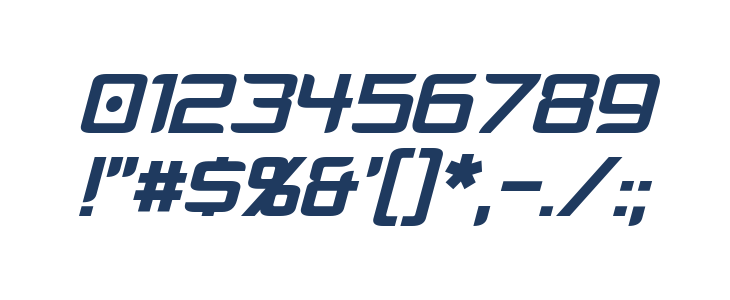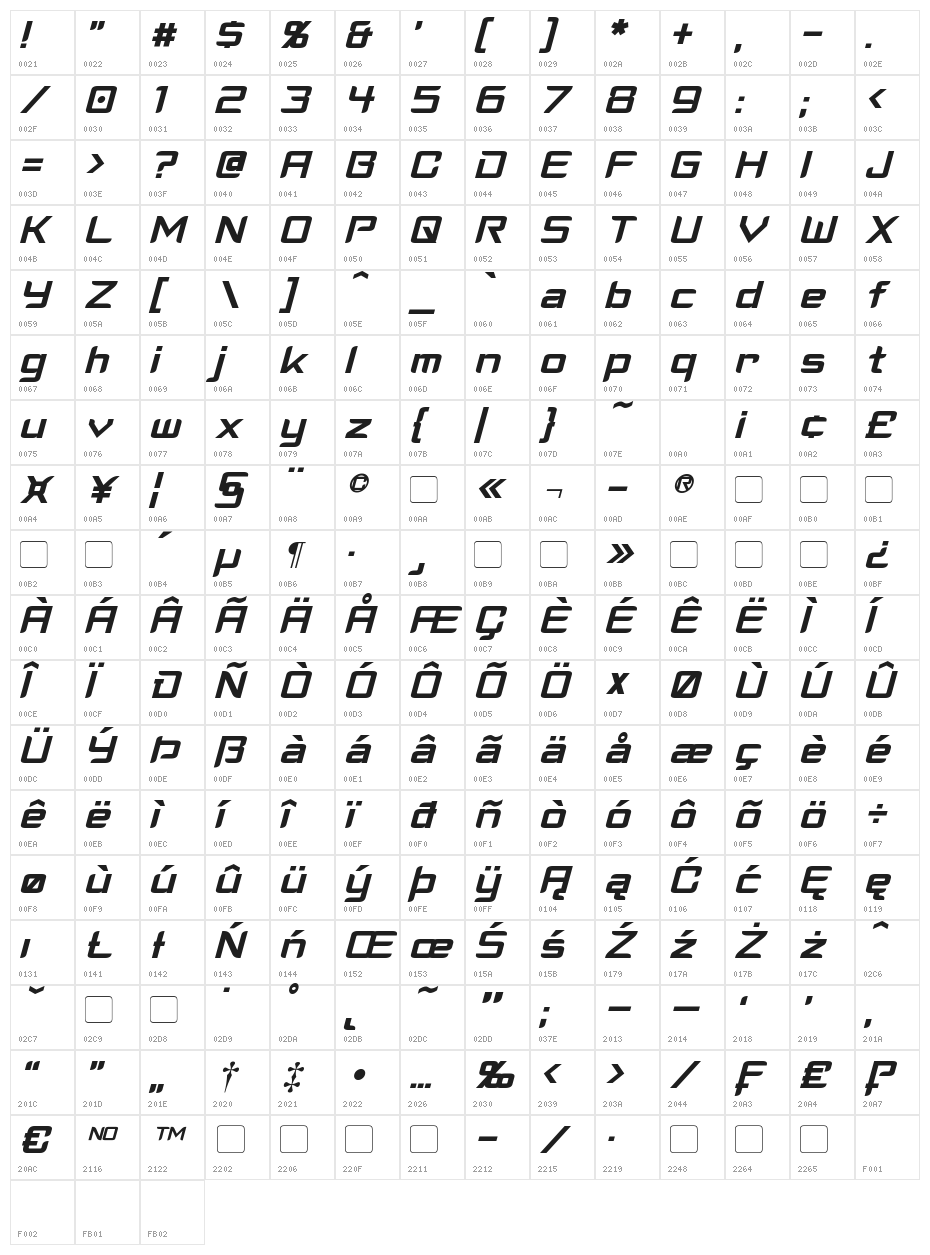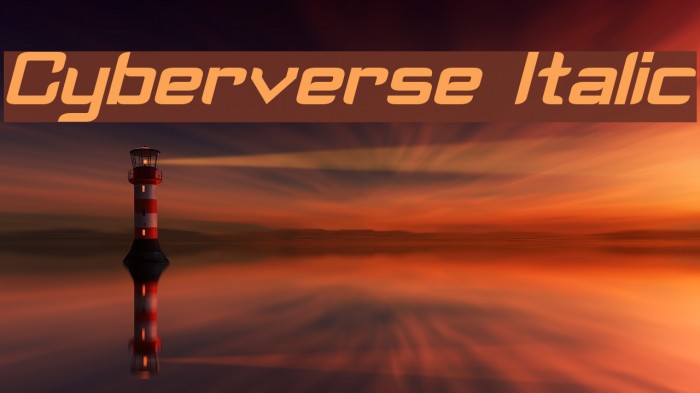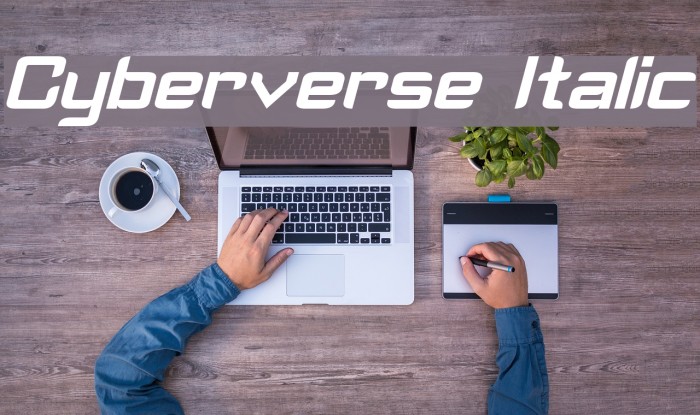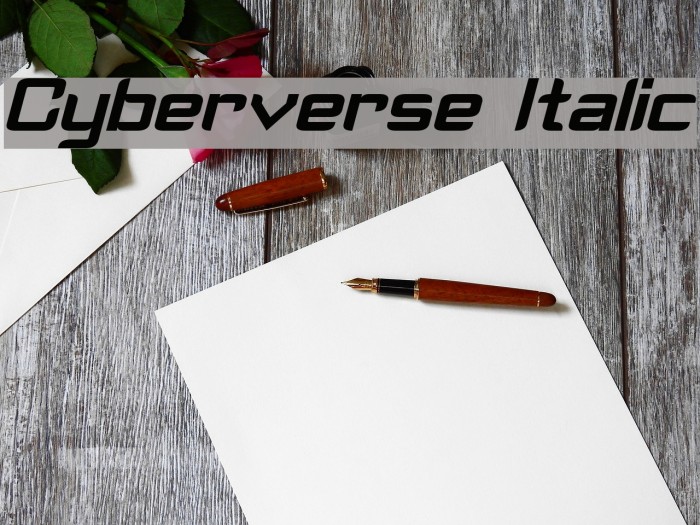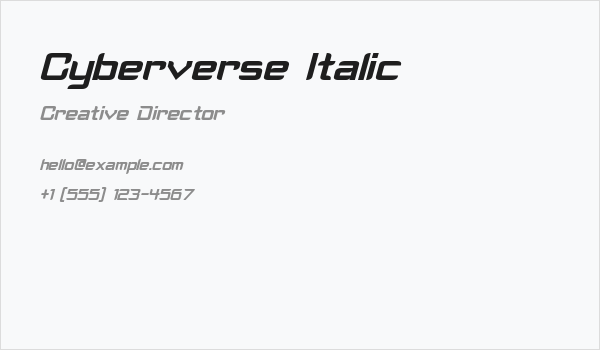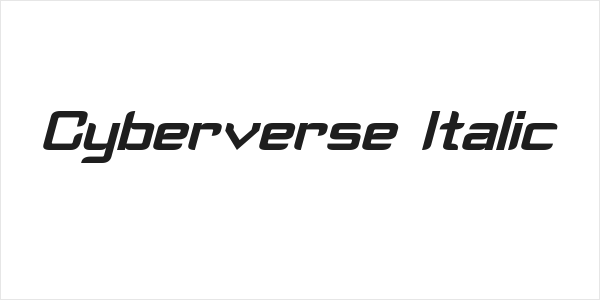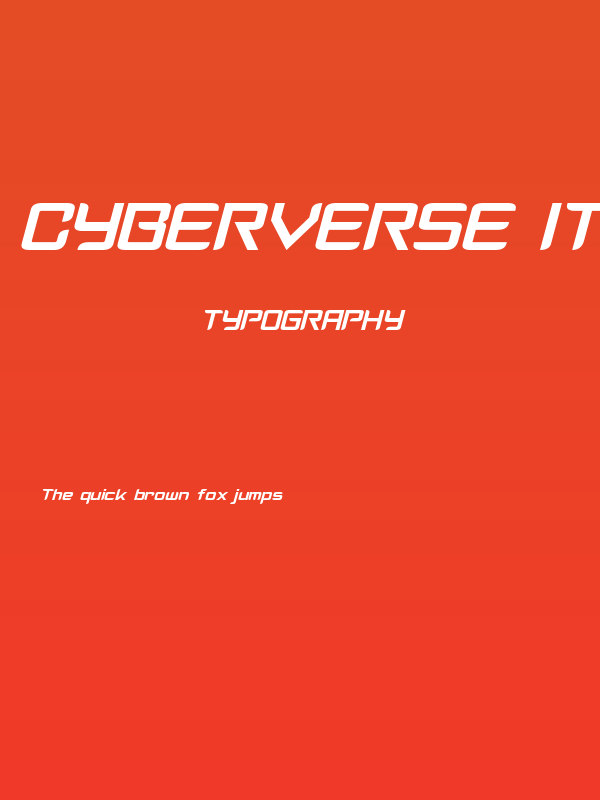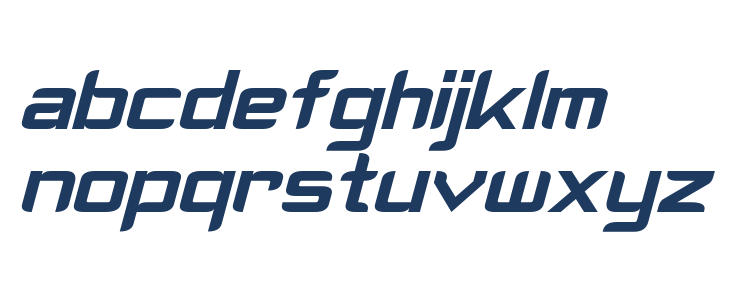
Cyberverse Italic Font
Cyberverse Italic Description
This font features a sleek, futuristic design with a distinct italic slant, giving it a dynamic and forward-moving appearance. The characters are crafted with sharp angles and smooth curves, creating a sense of speed and modernity. The uppercase letters are bold and commanding, while the lowercase letters maintain a consistent style that complements the overall aesthetic. Numbers and special characters are designed to match the angular and streamlined look, making them ideal for digital and tech-oriented projects. The font's unique style is perfect for conveying innovation and cutting-edge technology.
| Use Case | Headlines, Logos, Digital interfaces |
| Proposed Projects | Ideal for tech branding, digital interfaces, video game titles, and sci-fi themed designs. |